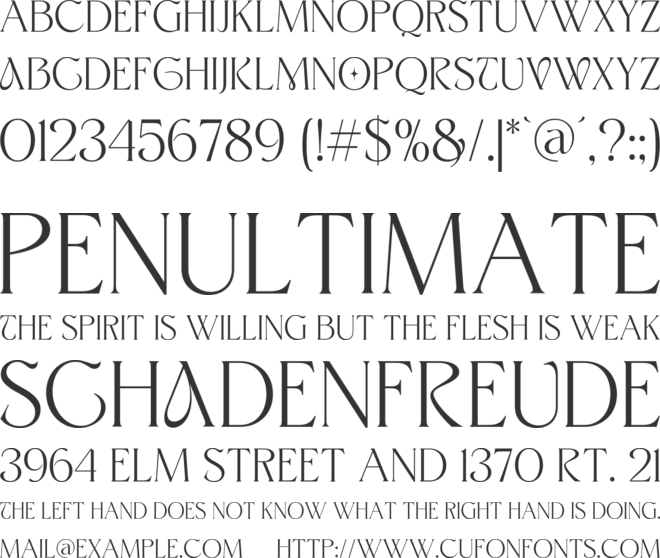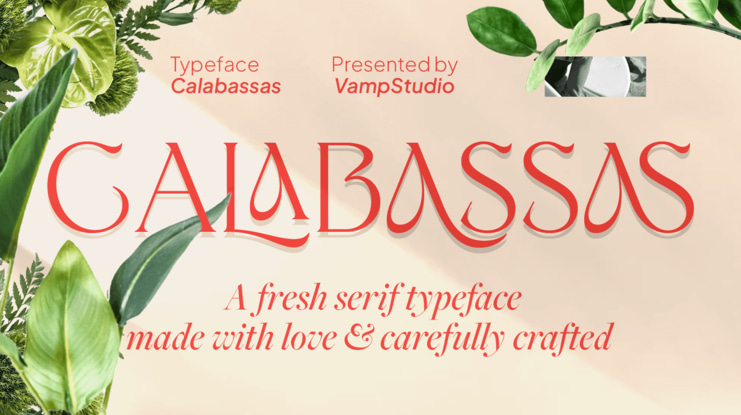
Calabassas Font
Calabassas serif is a modern elegant and stylish serif typeface. Embrace contemporary sophistication with “Calabassas Serif,” a meticulously designed serif typeface that exudes simplicity, cleanliness, and timeless elegance. Crafted by skilled artisans, this font is the perfect fit for elevating your most prestigious projects.